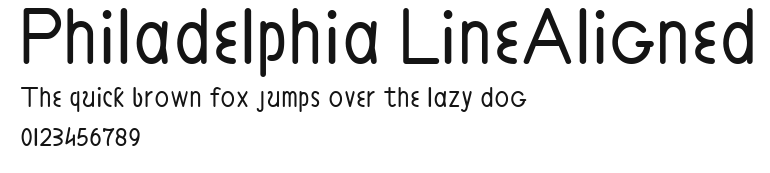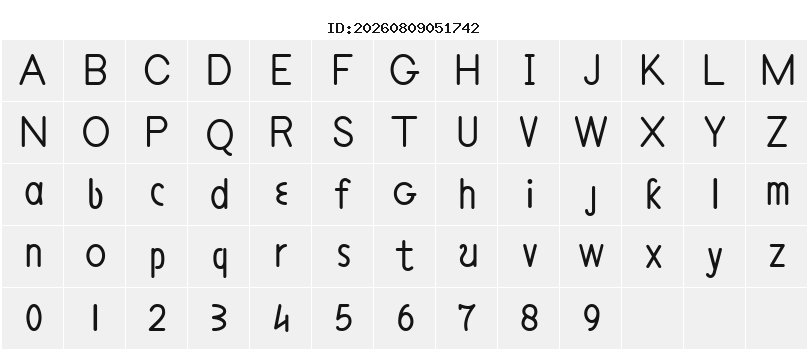
Philadelphia LineAligned.ttf is a modern, elegant sans-serif font designed for ultimate readability and visual harmony. Perfect for branding, headlines, web design, and print materials.